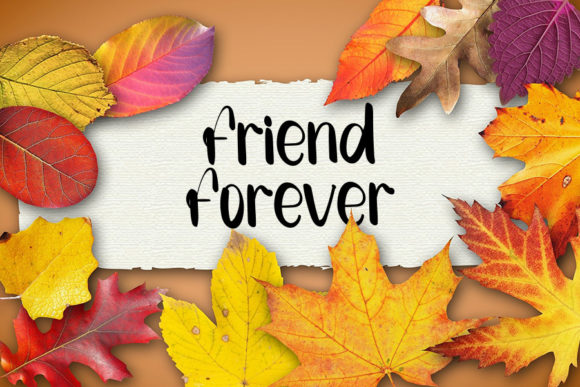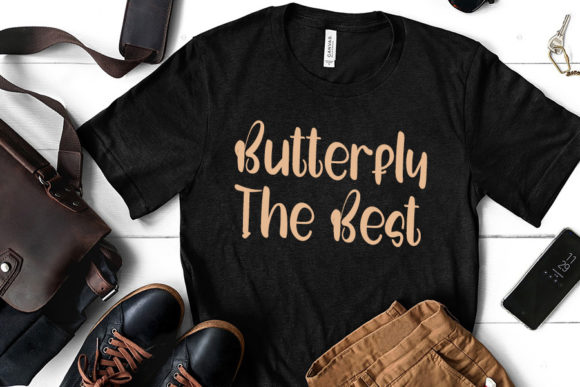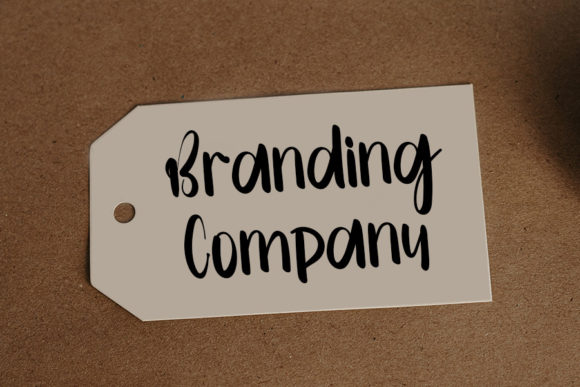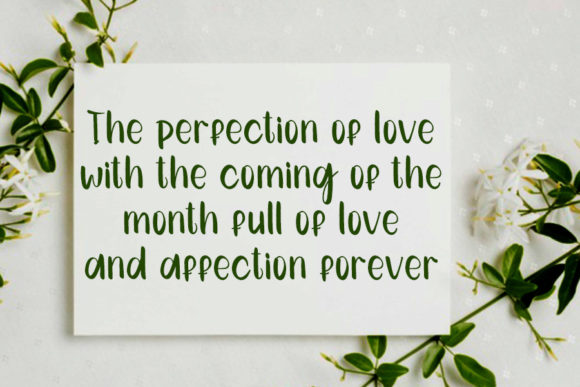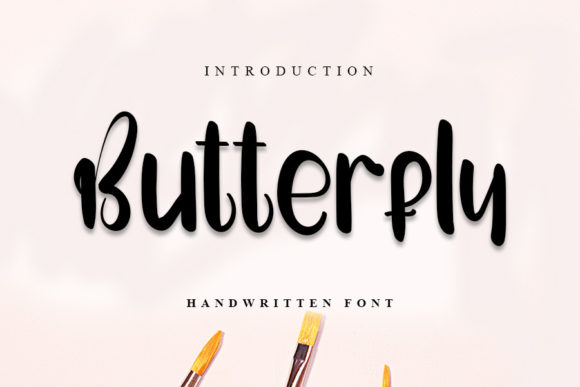
Introducing the Butterfly Font: A Dainty and Unique Script Font for Romantic Designs
Are you looking for a font that can add a touch of romance and elegance to your designs? Look no further than the Butterfly Font. This beautiful script font is perfect for creating stunning love letters, wedding invitations, and other design projects that require a personal and whimsical touch. In this article, we’ll explore the features and benefits of the Butterfly Font, and show you how to incorporate it into your designs.
What is the Butterfly Font?
The Butterfly Font is a dainty and unique script font that is designed to add a touch of romance and whimsy to your designs. With its delicate and flowing lines, this font is perfect for creating beautiful and elegant text that will capture the hearts of your audience. Whether you’re designing a wedding invitation, a love letter, or a romantic quote, the Butterfly Font is sure to make your text stand out.
Features of the Butterfly Font
The Butterfly Font has several features that make it a great choice for designers and crafters. Some of its key features include:
- Unique and Dainty Design: The Butterfly Font has a unique and dainty design that sets it apart from other script fonts. Its delicate lines and flowing curves make it perfect for creating romantic and elegant text.
- Romantic and Whimsical: The Butterfly Font has a romantic and whimsical feel that makes it perfect for creating designs that require a personal touch. Whether you’re designing a wedding invitation or a love letter, this font is sure to add a touch of magic to your text.
- Easy to Read: Despite its delicate design, the Butterfly Font is easy to read and understand. This makes it perfect for creating designs that require a clear and concise message.
- Versatile: The Butterfly Font is versatile and can be used for a variety of design projects, including wedding invitations, love letters, romantic quotes, and more.
How to Use the Butterfly Font
Using the Butterfly Font is easy and straightforward. Here are some tips to help you get started:
- Choose the Right Size: The Butterfly Font is a delicate font that looks best when used at a moderate size. Experiment with different sizes to find the one that works best for your design.
- Pair it with Other Fonts: The Butterfly Font can be paired with other fonts to create a unique and interesting design. Experiment with different font combinations to find the one that works best for your project.
- Use it for Headings and Titles: The Butterfly Font is perfect for creating beautiful headings and titles. Use it to add a touch of elegance and sophistication to your design.
- Experiment with Colors: The Butterfly Font looks great in a variety of colors. Experiment with different colors to find the one that works best for your design.
Design Ideas Using the Butterfly Font
The Butterfly Font is a versatile font that can be used for a variety of design projects. Here are some design ideas to get you started:
- Wedding Invitations: The Butterfly Font is perfect for creating beautiful and elegant wedding invitations. Use it to add a touch of romance and whimsy to your wedding stationery.
- Love Letters: The Butterfly Font is perfect for creating romantic and elegant love letters. Use it to express your feelings and emotions in a beautiful and unique way.
- Romantic Quotes: The Butterfly Font is perfect for creating beautiful and inspiring romantic quotes. Use it to add a touch of elegance and sophistication to your quotes.
- DIY Crafts: The Butterfly Font is perfect for creating beautiful and unique DIY crafts. Use it to add a touch of personality and whimsy to your crafts.
The Butterfly Font is a beautiful and unique script font that is perfect for creating romantic and elegant designs. With its delicate and flowing lines, this font is sure to add a touch of magic to your text. Whether you’re designing a wedding invitation, a love letter, or a romantic quote, the Butterfly Font is a great choice. So why not give it a try and see the amazing results for yourself?